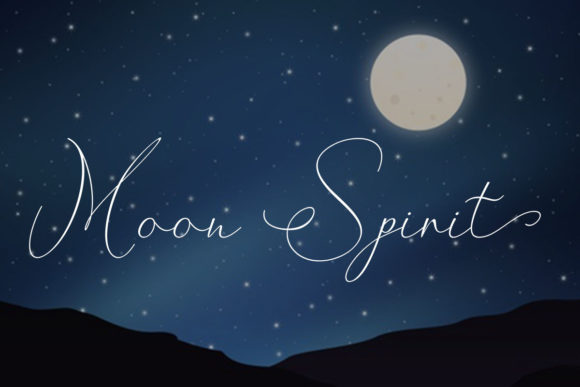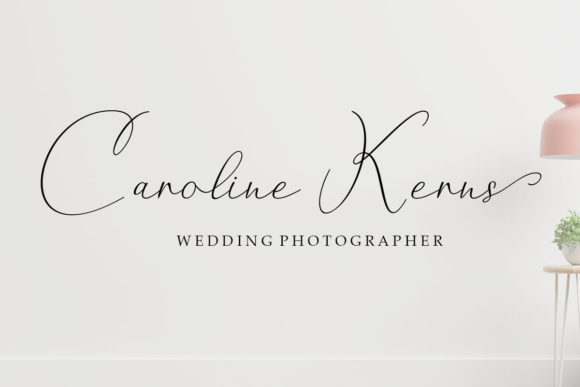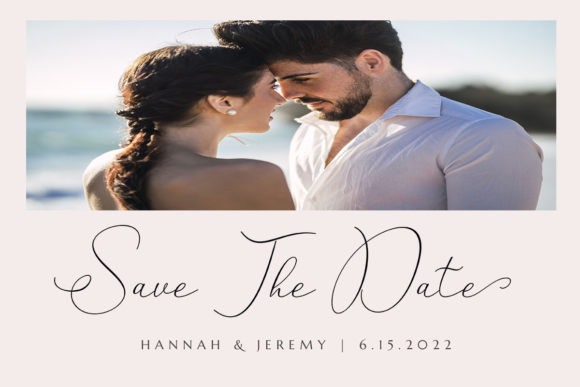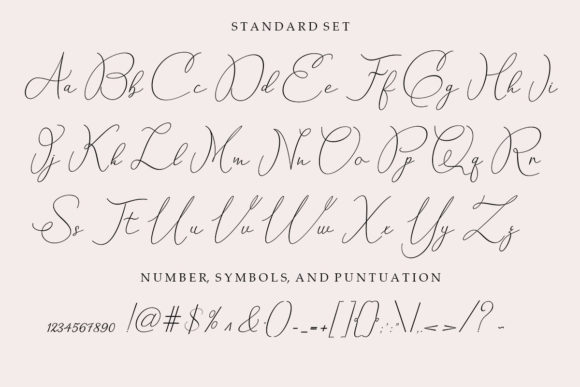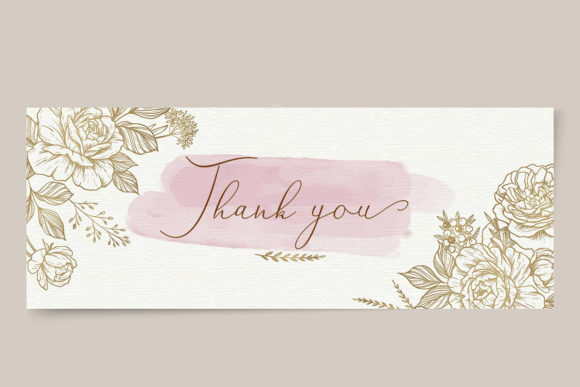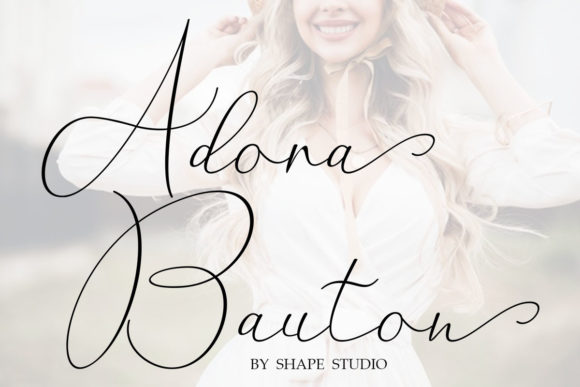
Discover the Charm of Adora Bauton Font: A Timeless Handwritten Delight
Are you on the hunt for a font that exudes elegance, sophistication, and a touch of whimsy? Look no further than Adora Bauton Font, a lovely and timeless handwritten font that’s perfect for creating eye-catching logos, branding, and quotes. In this article, we’ll dive into the world of Adora Bauton, exploring its features, benefits, and uses, and why it’s a must-have for designers and crafters alike.
The Beauty of Adora Bauton Font
Adora Bauton Font is a stunning example of handwritten typography, with flowing curves and delicate strokes that evoke a sense of nostalgia and romance. This beautiful font is perfect for adding a personal touch to your designs, whether you’re creating a logo, branding materials, or social media graphics. With its classic and timeless feel, Adora Bauton is sure to captivate your audience and leave a lasting impression.
PUA Encoding: Unlocking Endless Creative Possibilities
One of the standout features of Adora Bauton Font is its PUA (Private Use Area) encoding. This means that you can access all of the glyphs and swashes with ease, giving you endless creative possibilities. With PUA encoding, you can:
- Access a wide range of glyphs and swashes to add variety and interest to your designs
- Easily swap out letters and characters to create unique and customized typography
- Experiment with different combinations of glyphs and swashes to create one-of-a-kind designs
Adora Bauton Font is a versatile and user-friendly font that’s perfect for designers and crafters of all levels. Whether you’re a seasoned pro or just starting out, this font is easy to use and integrates seamlessly with your favorite design software. With Adora Bauton, you can:
- Create stunning logos and branding materials that capture the essence of your brand
- Design beautiful quotes and social media graphics that resonate with your audience
- Add a personal touch to your craft projects, such as handmade cards, scrapbooking, and DIY gifts
Why Choose Adora Bauton Font?
So why choose Adora Bauton Font over other fonts? Here are just a few reasons:
- Unique and distinctive: Adora Bauton Font has a one-of-a-kind look that’s sure to set you apart from the crowd
- Elegant and sophisticated: This font exudes elegance and sophistication, making it perfect for high-end branding and design projects
- Easy to use: With PUA encoding and a user-friendly design, Adora Bauton Font is easy to use and integrate into your workflow
- Versatile: This font is perfect for a wide range of design projects, from logos and branding to quotes and craft projects
In conclusion, Adora Bauton Font is a timeless and lovely handwritten font that’s perfect for designers and crafters looking to add a touch of elegance and sophistication to their designs. With its PUA encoding and user-friendly design, this font offers endless creative possibilities and is easy to use. Whether you’re creating logos, branding materials, or craft projects, Adora Bauton Font is sure to captivate your audience and leave a lasting impression.